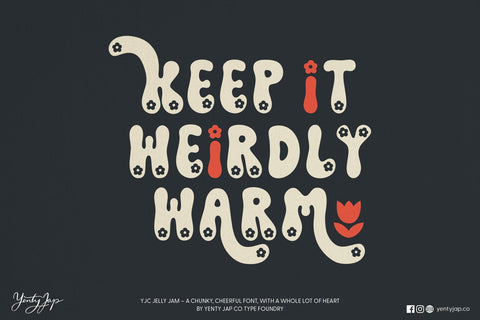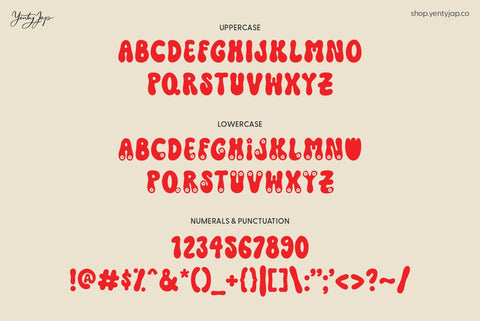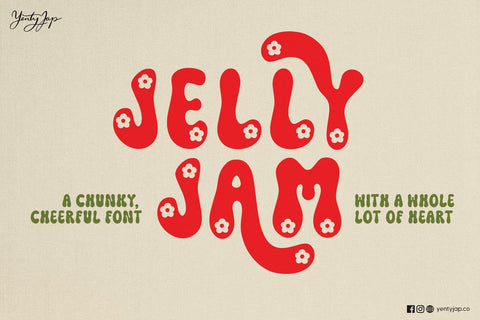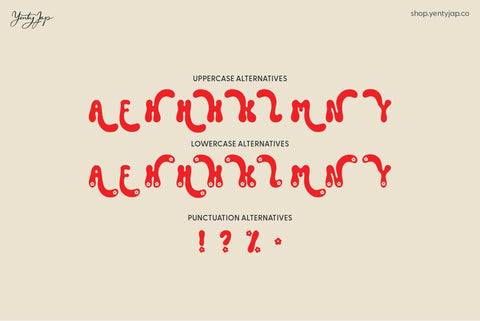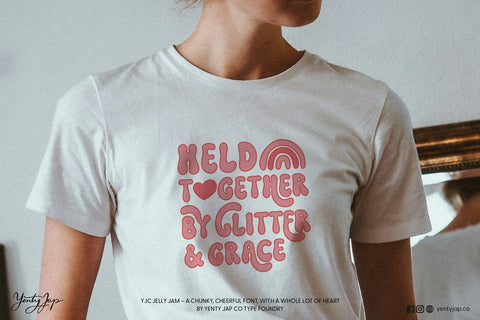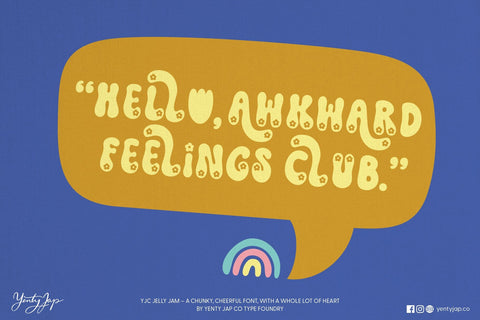
YJC Jelly Jam - A Chunky, Groovy, Retro Font
Say hello to YJC Jelly Jam — a juicy, joy-filled display font with a wobbly charm and just the right amount of attitude. It’s bold but not bossy, quirky but never chaotic, and made for creatives who want their words to speak (and maybe even sing a little).
Whether you're designing for a heartfelt greeting card or a scroll-stopping social media post, Jelly Jam brings a touch of personality to everything it touches — like a big, bubbly hug in type form.
1. A full set of uppercase and lowercase letters with multilingual support
2. Numbers, punctuation, and symbols
Pair it with fun illustrations, use it in bold statements, or let it shine solo — Jelly Jam is here to help you connect, express, and create with heart.